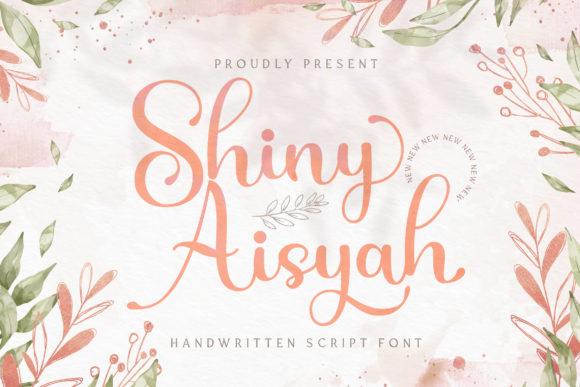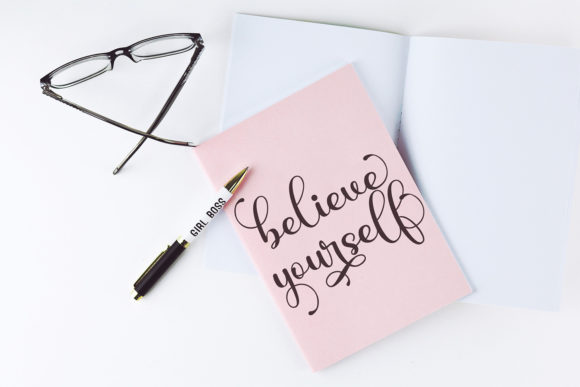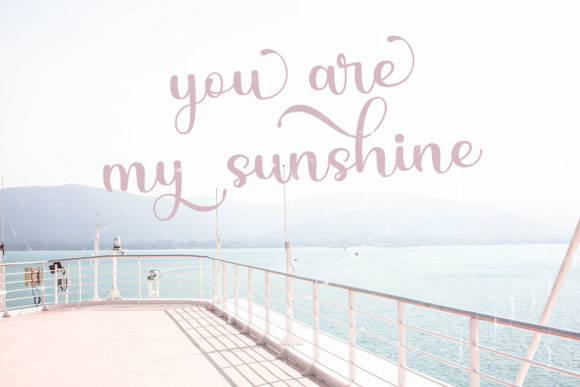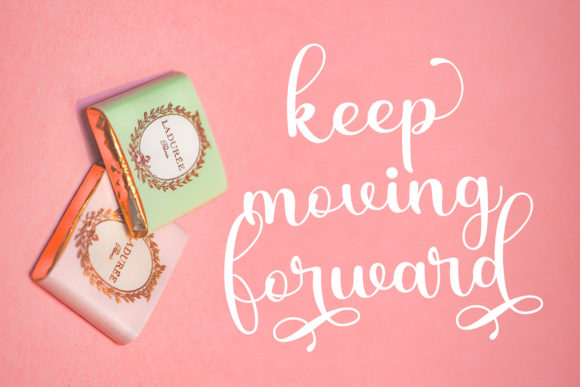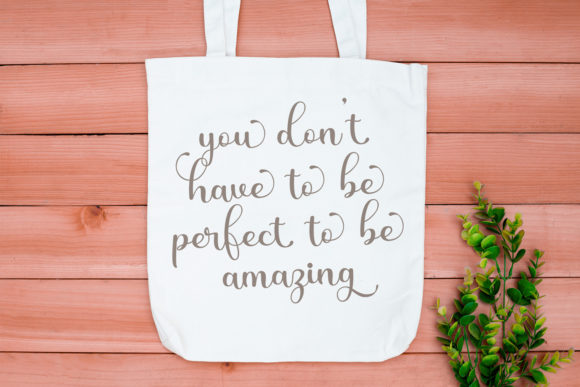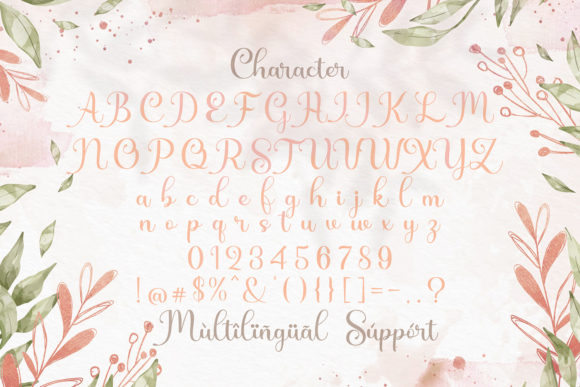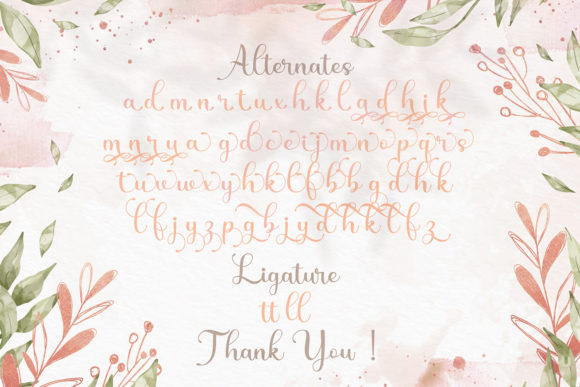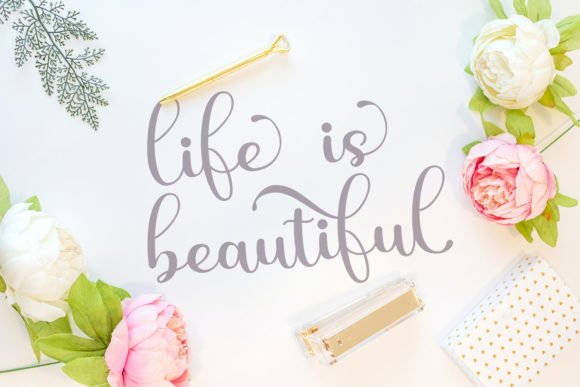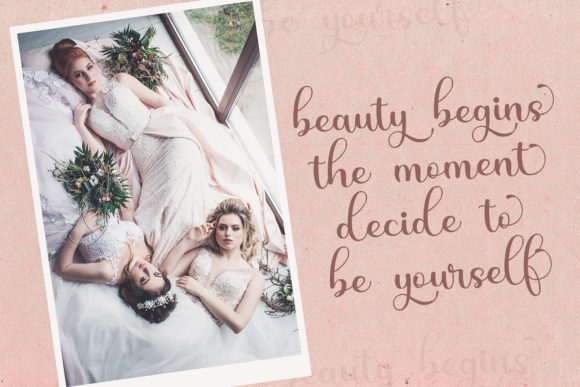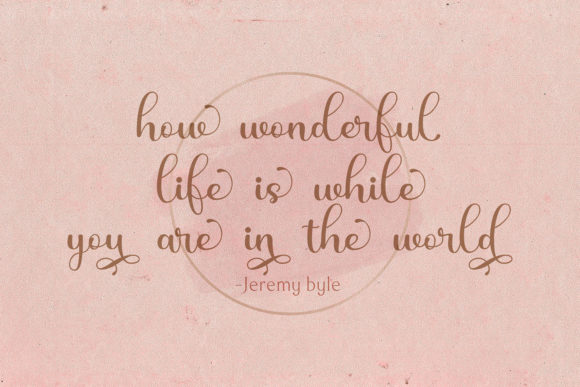
Shiny Aisyah Font
About Shiny Aisyah Font
Shiny Aisyah feels equally charming and elegant. It looks lovely on wedding invitations, thank you cards, quotes, greeting cards, logos, business cards and every other design which needs a handwritten touch.